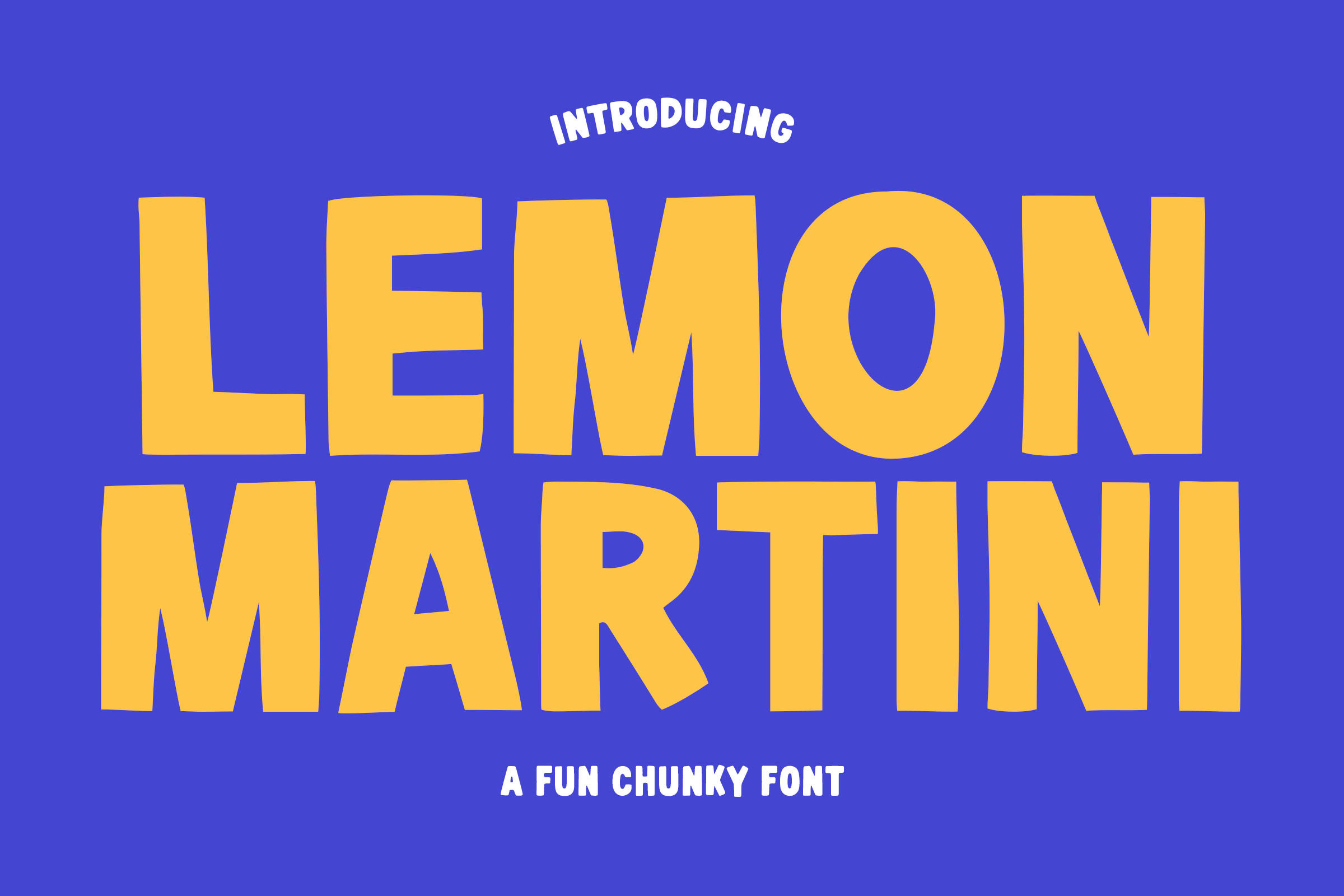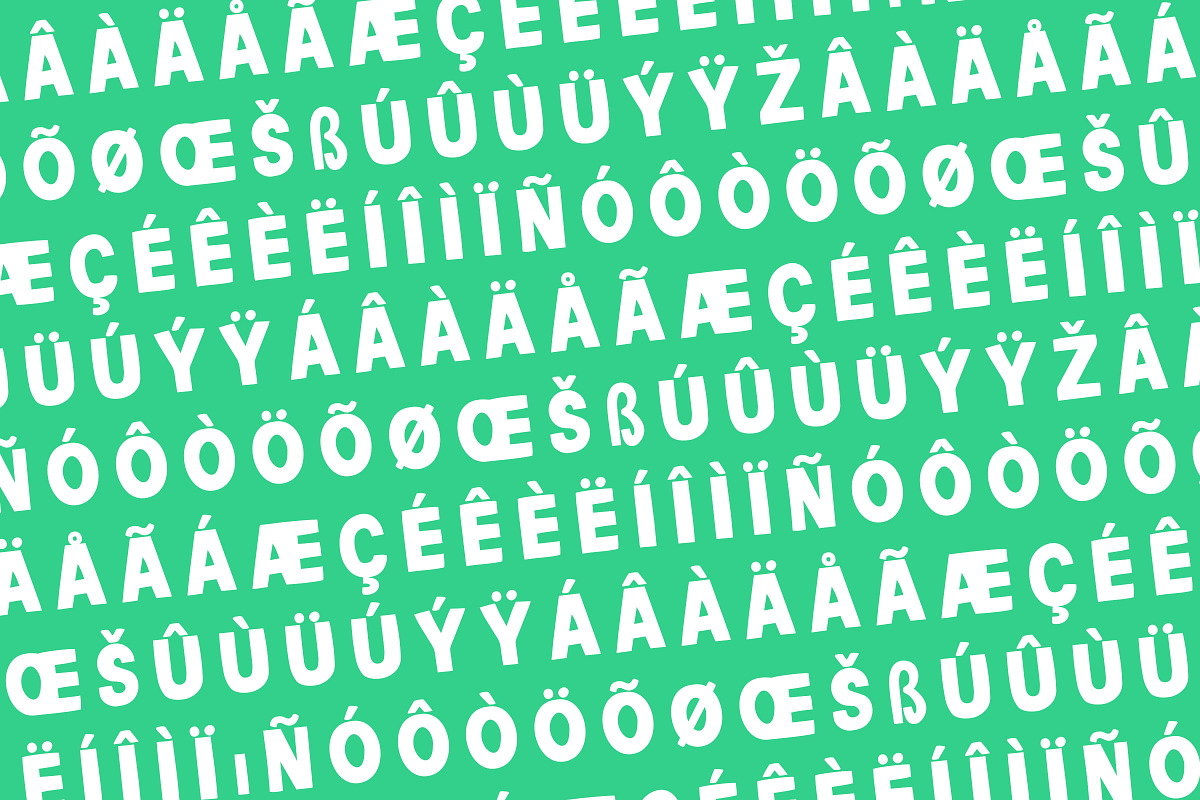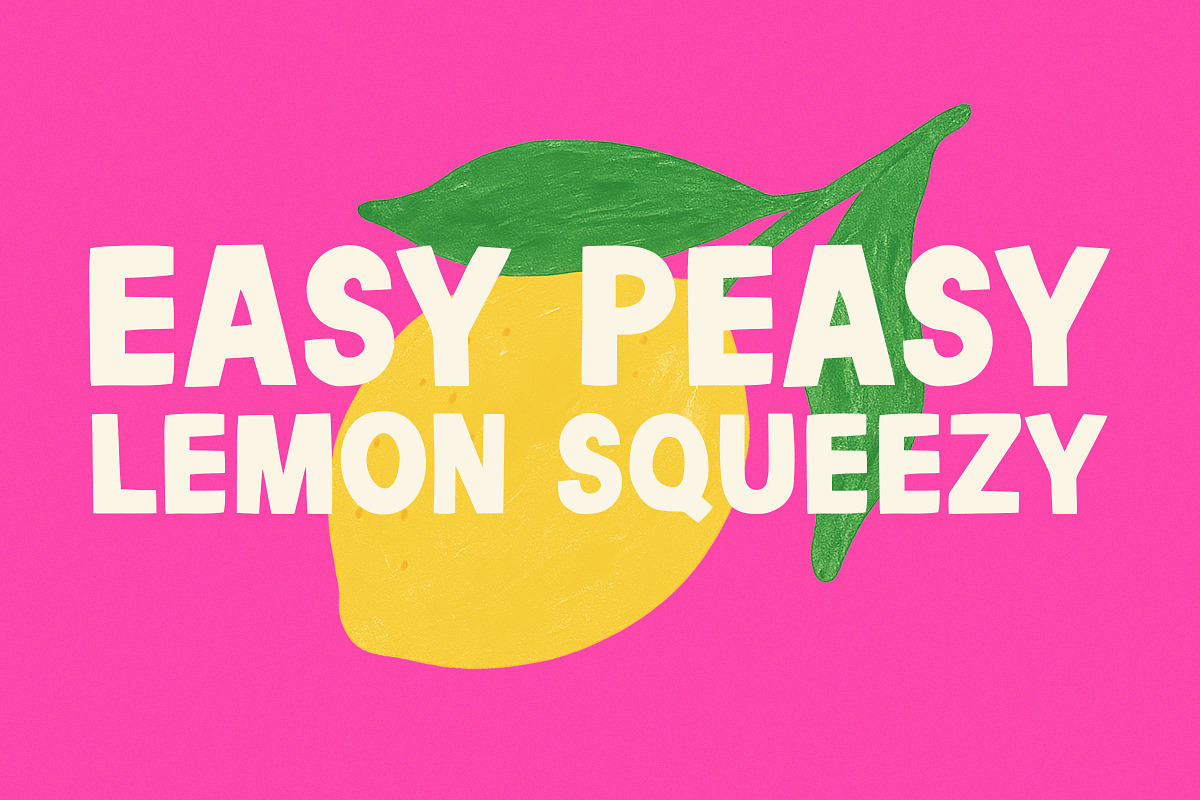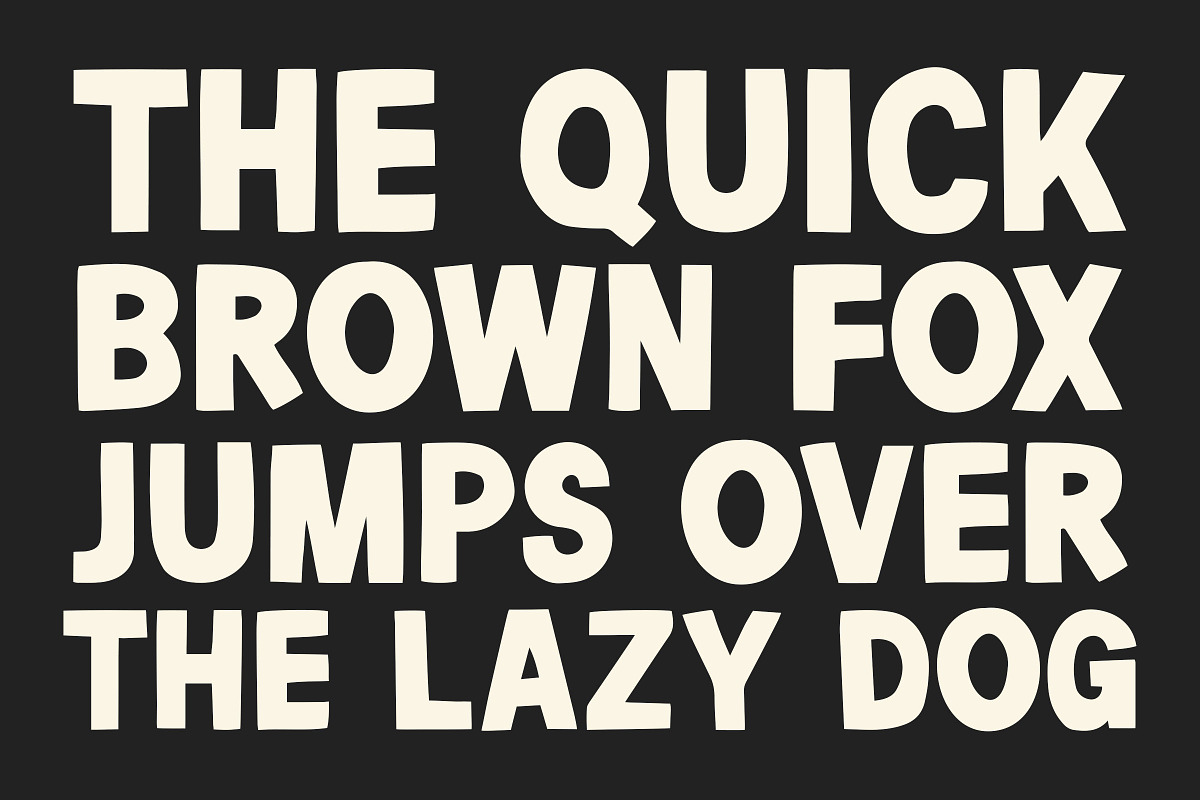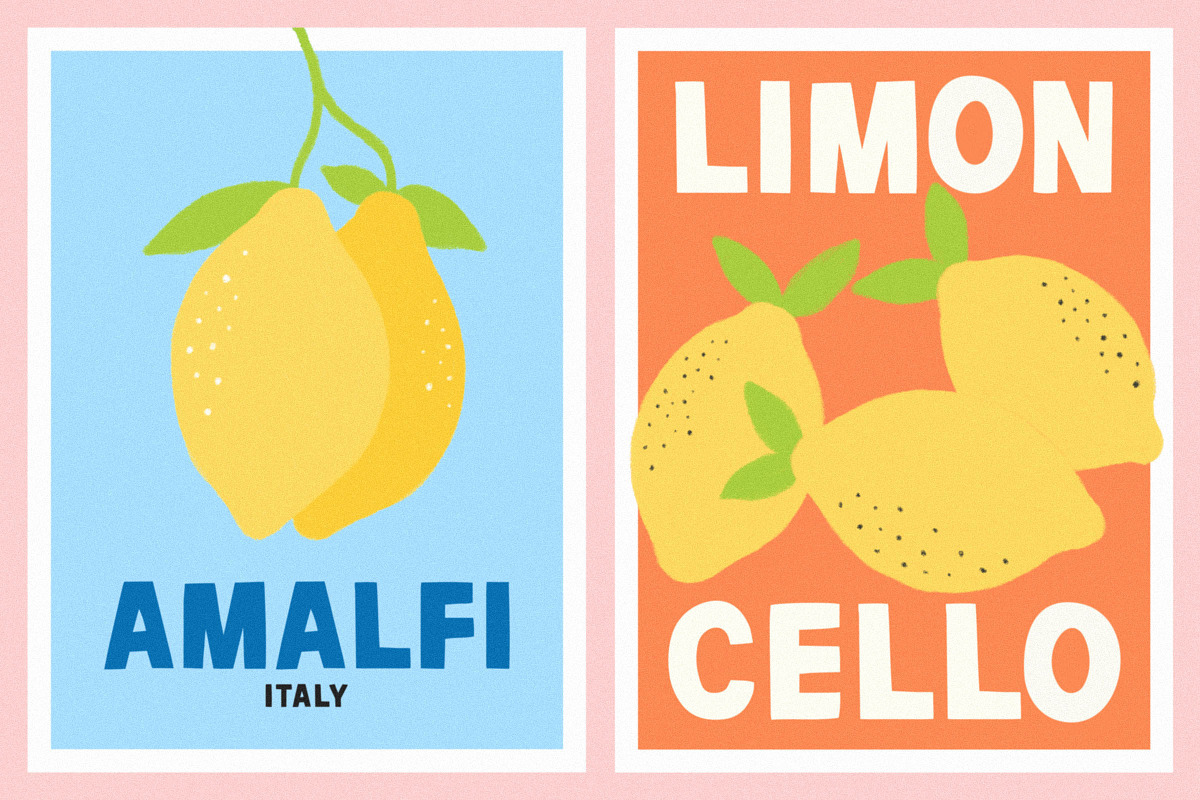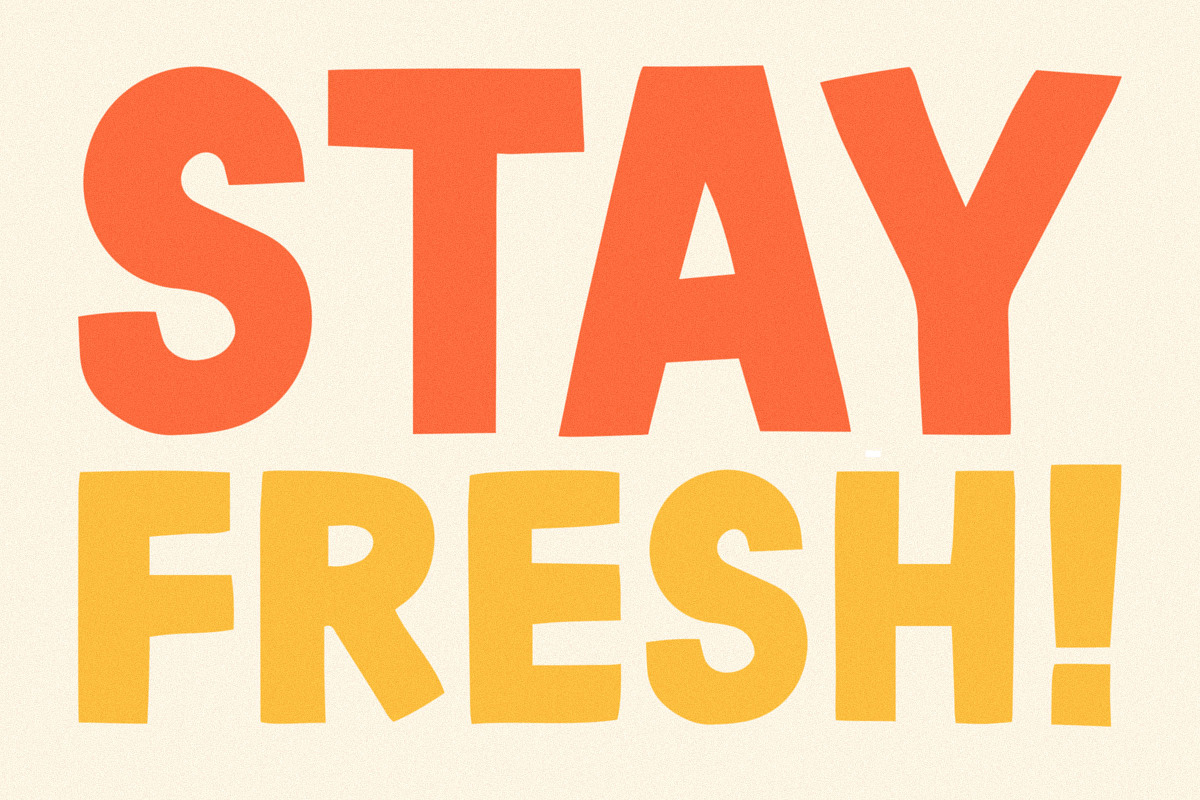
Lemon Martini - Fun Chunky Font
Lemon Martini is a fun chunky bold typeface perfect for any fun quirky design work! This font can be used for anything such as t-shirt designs, phone cases, greeting cards, invitations, mugs and so much more! Get creative!